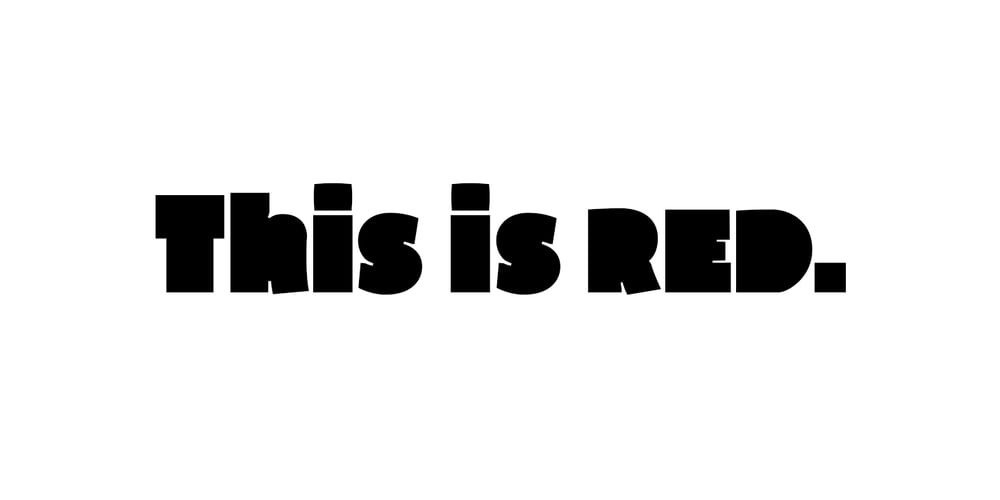
Red font
Red Font Family was designed by Kevin Thrasher and published by Kevin Thrasher. Red contains 1 styles and family package options. Red began as an experiment, and turned into a larger project. Most super-black type designs are constructed of extremely simple and geometric elements. Most of them do not include a lowercase alphabet. Red is designed to be simultaneously more human, as black as possible, and as readable as possible. VIew the full specimen here.